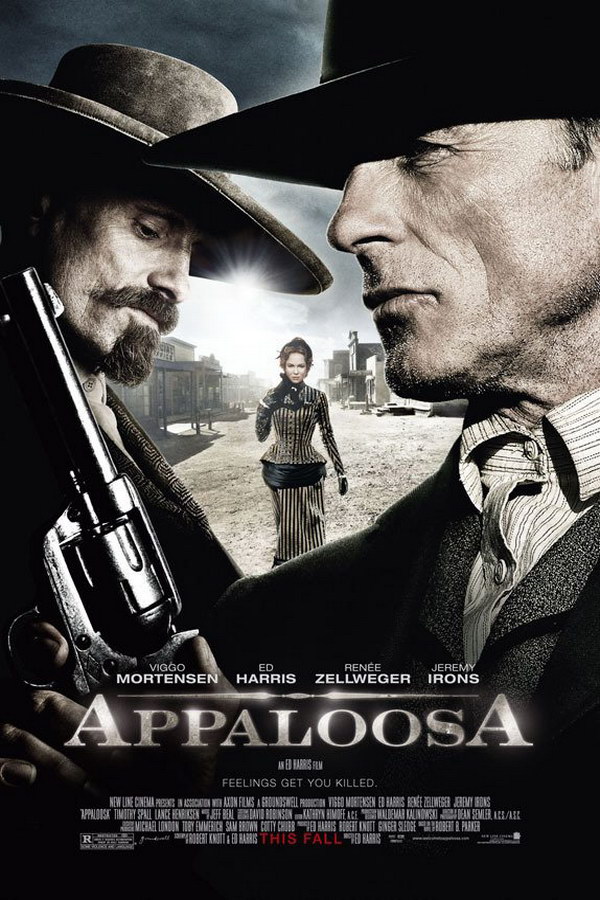
Appaloosa Font
Fonts in UseAppaloosa is a 2008 Western film directed by Ed Harris, where two lawmen are hired to protect a small town from a ruthless rancher. It stars Ed Harris, Viggo Mortensen, and Renée Zellweger.
The movie title in the posters of "Appaloosa" likely features Engravers Bold Face, a font inspired by Morris Fuller Benton's 1902 typeface for ATF. Additional information on the typeface is available here.